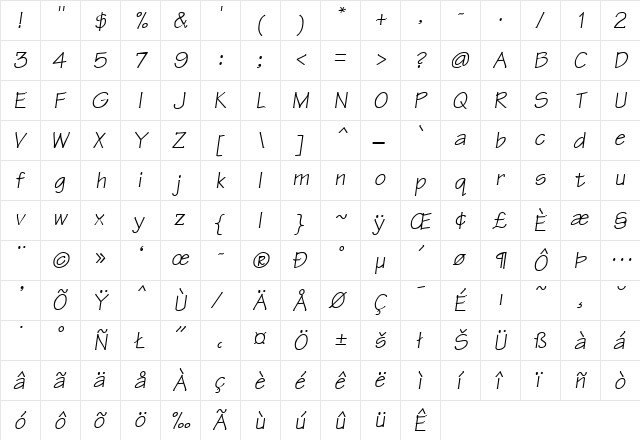
Tekton-Oblique Regular
Design Context for Tekton-Oblique Typeface
Tekton-Oblique is a composed and adaptable typeface that performs quietly and consistently across a wide range of design contexts. Its italic angle brings a sense of urgency and motion to the letterforms.
Pro Tip: Try Tekton-Oblique for annotation and caption copy alongside an upright companion — the contrast in angle creates a dynamic but ordered typographic system.